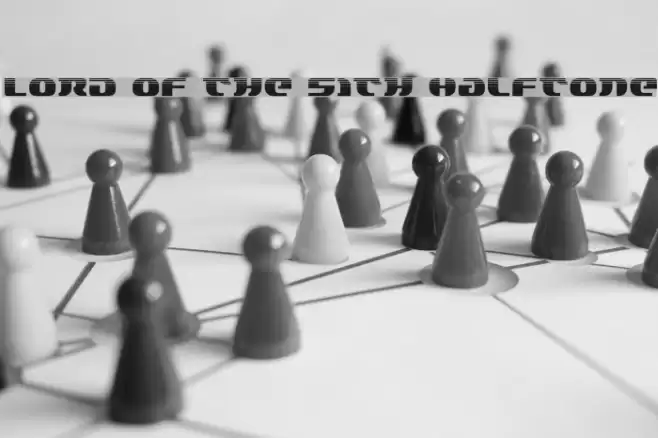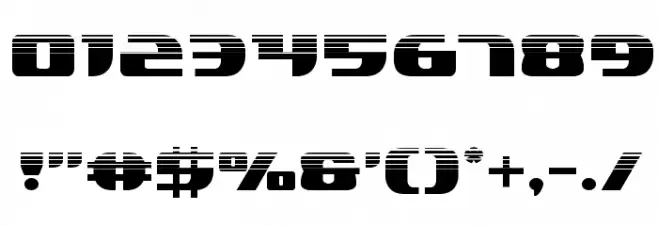
Lord of the Sith Halftone Font
Lord of the Sith Halftone Description
This font features a bold, futuristic design with a halftone effect that gives it a unique, digital appearance. The characters are constructed with horizontal lines that create a sense of movement and depth, making it ideal for modern and tech-oriented projects. The uppercase and lowercase letters maintain a consistent style, with rounded edges and a strong geometric influence. Numbers and special characters are equally bold and stylized, ensuring a cohesive look across all text elements. The font's distinct style makes it stand out, perfect for eye-catching headlines or branding that requires a modern, edgy feel.
A bold, futuristic font with a halftone effect and geometric design from Uncategorized fonts.
- Proposed Projects: Ideal for tech branding, sci-fi posters, video game titles, and modern advertising.